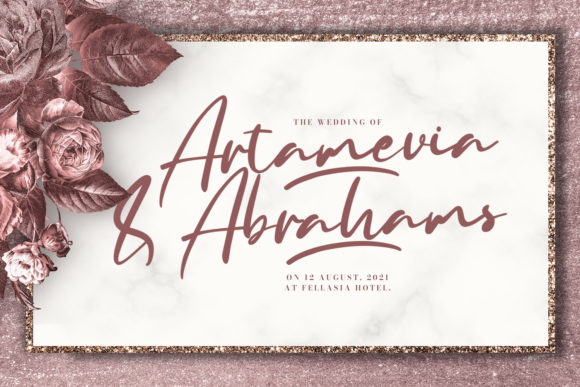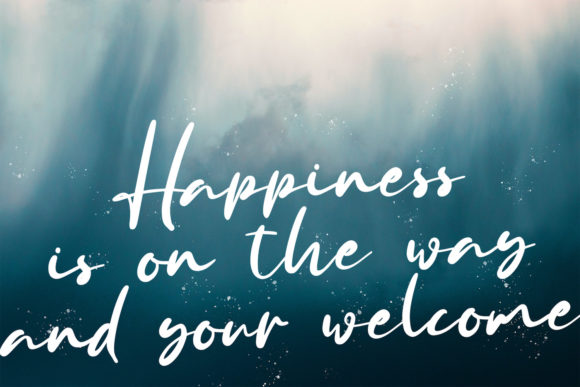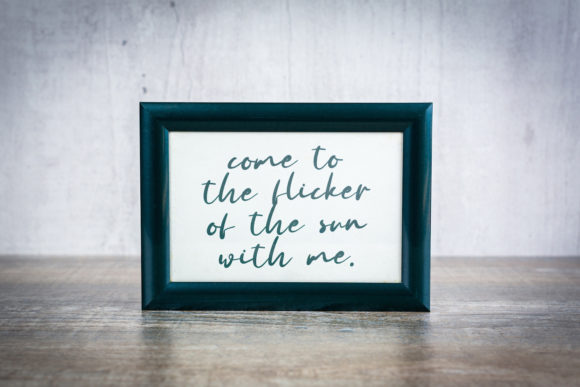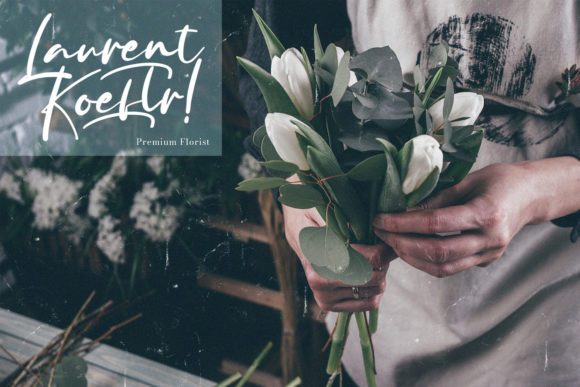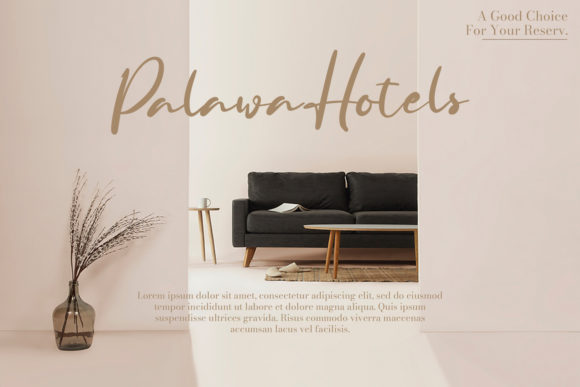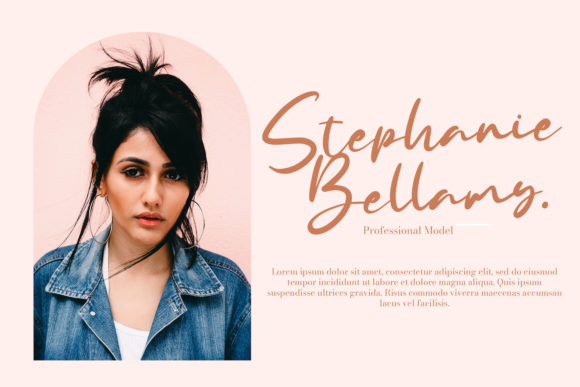
The Perfect Handwritten Touch: Discover the Allure of Anyer Beach Font
There’s something magical about designing a wedding invitation that perfectly captures the essence of the special day. As you browse through your font options, you’re on the hunt for that perfect handwritten touch that will leave your guests in awe. That’s where Anyer Beach Font comes in – a stylish and elegant script font that will elevate your designs to new heights.
With its versatility and sophistication, Anyer Beach Font is a valuable asset for any designer looking to add a personal touch to their projects. Whether you’re creating wedding invitations, thank you cards, or logos, this font is sure to impress. Its beauty lies in its simplicity, making it an ideal choice for designers who want to create stunning designs without the hassle of complex font combinations.
Key Features of Anyer Beach Font
- Font Family: Anyer Beach Font is a unique, hand-drawn font family designed to evoke the feeling of a tropical beach.
- Size: Each font comes in 4 different sizes: Anyer Beach Font Regular, Anyer Beach Font Bold, Anyer Beach Font Italic, and Anyer Beach Font Bold Italic.
- Resolution: Optimized for high-resolution displays, making it perfect for use in digital designs such as logos, signage, and advertising materials.
- Unique Characteristics: Features a distinctive, hand-drawn style with intricate details and a distressed texture, giving it a one-of-a-kind look.
- Language Support: Supports a wide range of languages, including Latin-based languages and some languages that use non-Latin scripts, making it a versatile choice for designers.
First off, let me say that the Anyer Beach Font is a beautiful, hand-drawn font that’s sure to catch the eye of anyone who sees it. ✨ The unique combination of organic and geometric elements makes it feel both natural and modern at the same time. It’s perfect for any design project that needs a bit of whimsy and character.
The font is highly customizable, allowing you to adjust the size, color, and spacing to suit your specific needs. ✨ This makes it a great choice for logos, signage, and other applications where you need a lot of control over the design. The font also comes in a range of weights and styles, from light to bold, which adds to its versatility.
One of the main limitations of the Anyer Beach Font is its relatively small character set. ⚠️ This means that it may not be the best choice for projects that require a lot of specialized characters, such as mathematical equations or foreign languages.
Another limitation is the font’s relatively low legibility at small font sizes. ⚠️ While it’s still readable, the font’s intricate details can become lost at sizes below 12 points. This may be a concern for projects where text needs to be displayed in a small format.
Overall, I’d say that the Anyer Beach Font is a great choice for designers who want to add a bit of personality to their projects. While it may have some limitations, its unique style and high level of customization make it a versatile and effective tool. Just be sure to test it out in different sizes and contexts before committing to a final design.
- Beautiful, hand-drawn design
- Range of weights and styles
- Perfect for logos, signage, and other applications
The Anyer Beach Font is well-suited for:
- Travel and tourism brochures
- Beach-themed party invitations
- Outdoor and adventure-themed designs
To get the most out of the Anyer Beach Font, be sure to:
- Pair it with complementary colors to enhance its